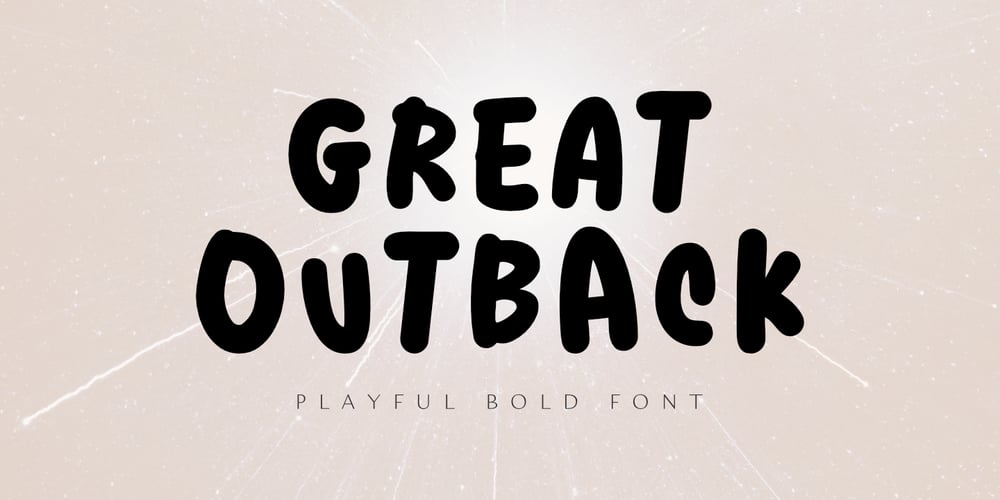
Great Outback Font Family was designed by Aldy Sidik and published by Epiclinez. Great Outback contains 1 styles and family package options. Great Outback is a display typeface that’s bold, fun and playful. It’s also clean and versatile, making it a perfect addition to any designer’s kit. Packed with personality, this typeface screams out loud. Great Outback is suitable for headlines, packaging, logo etc. Use it to give your design that memorable edge. Out of the ordinary and into the great outdoors!So what’s included : Standard Latin Numbers, symbols, and punctuations Multilingual Support. Accented Characters : ÀÁÂÃÄÅÆÇÈÉÊËÌÍÎÏÑÒÓÔÕÖØŒŠÙÚÛÜŸÝŽàáâãäåæçèéêëìíîïñòóôõöøœšùúûüýÿžß PUA Encoded and fully accessible without additional design software Simple Installations Works on PC & Mac Thank You!